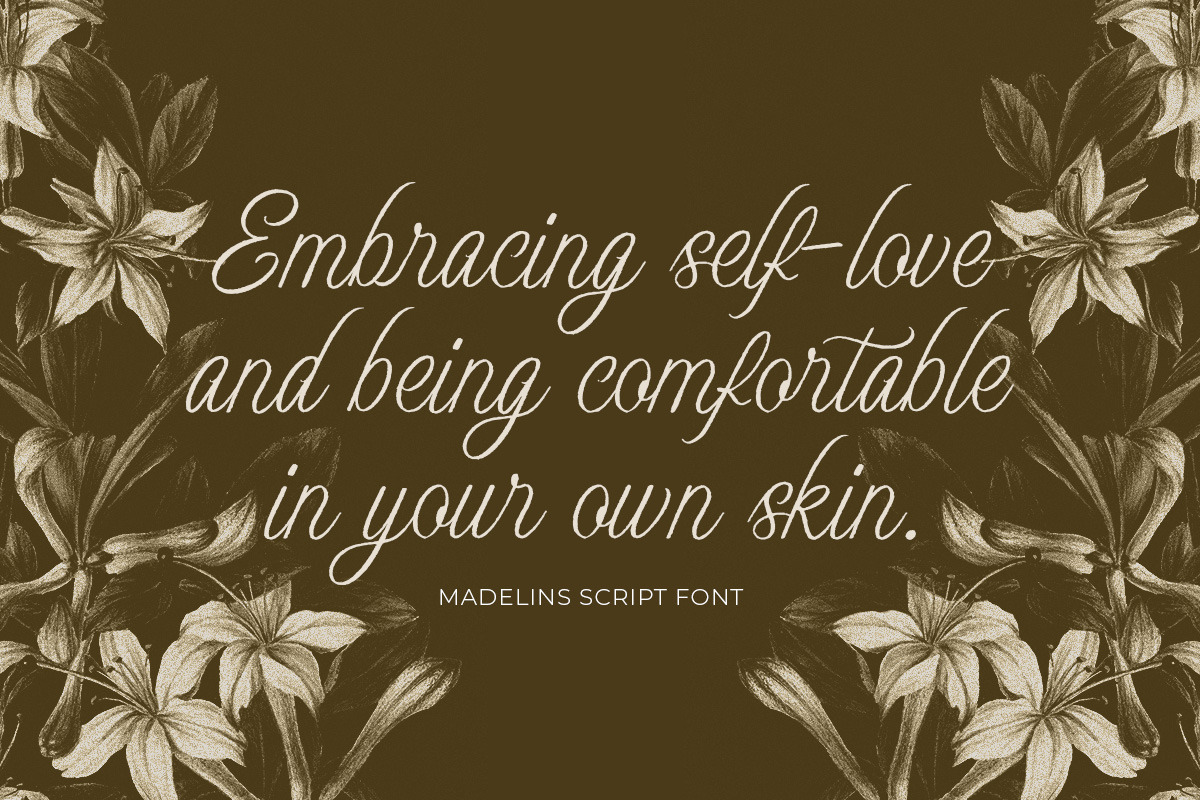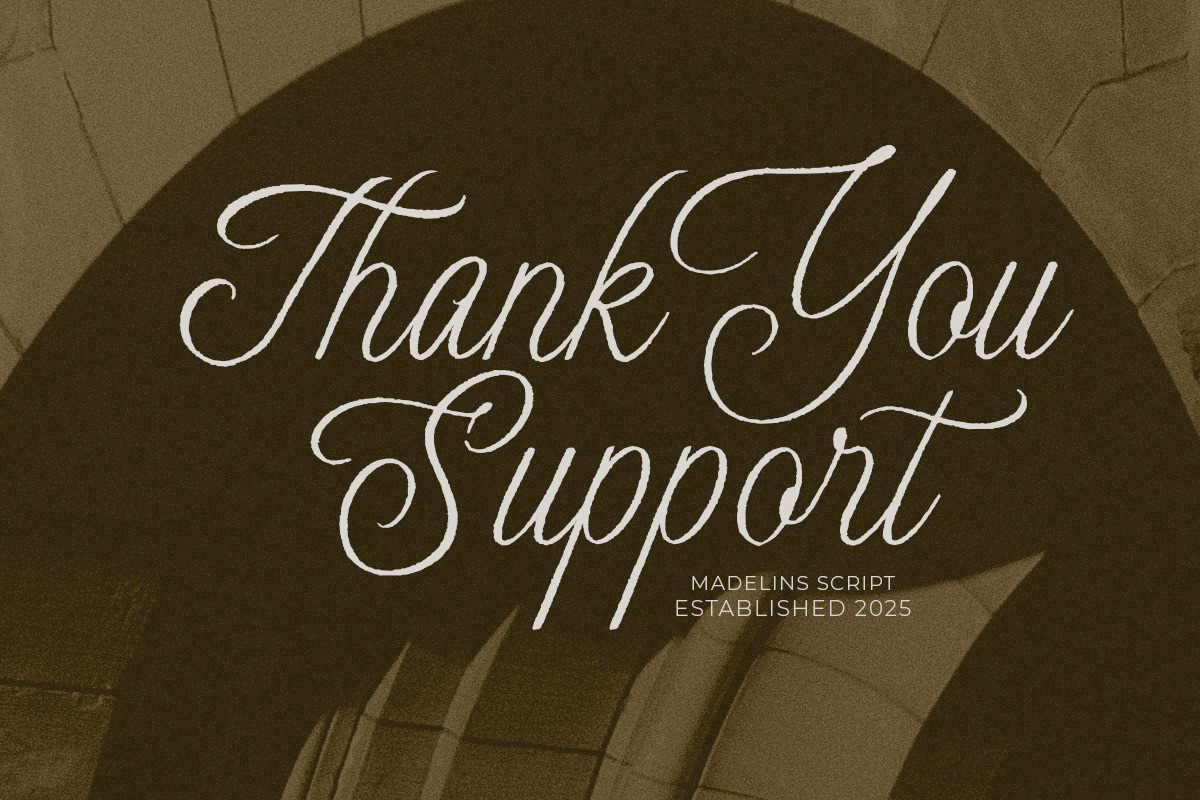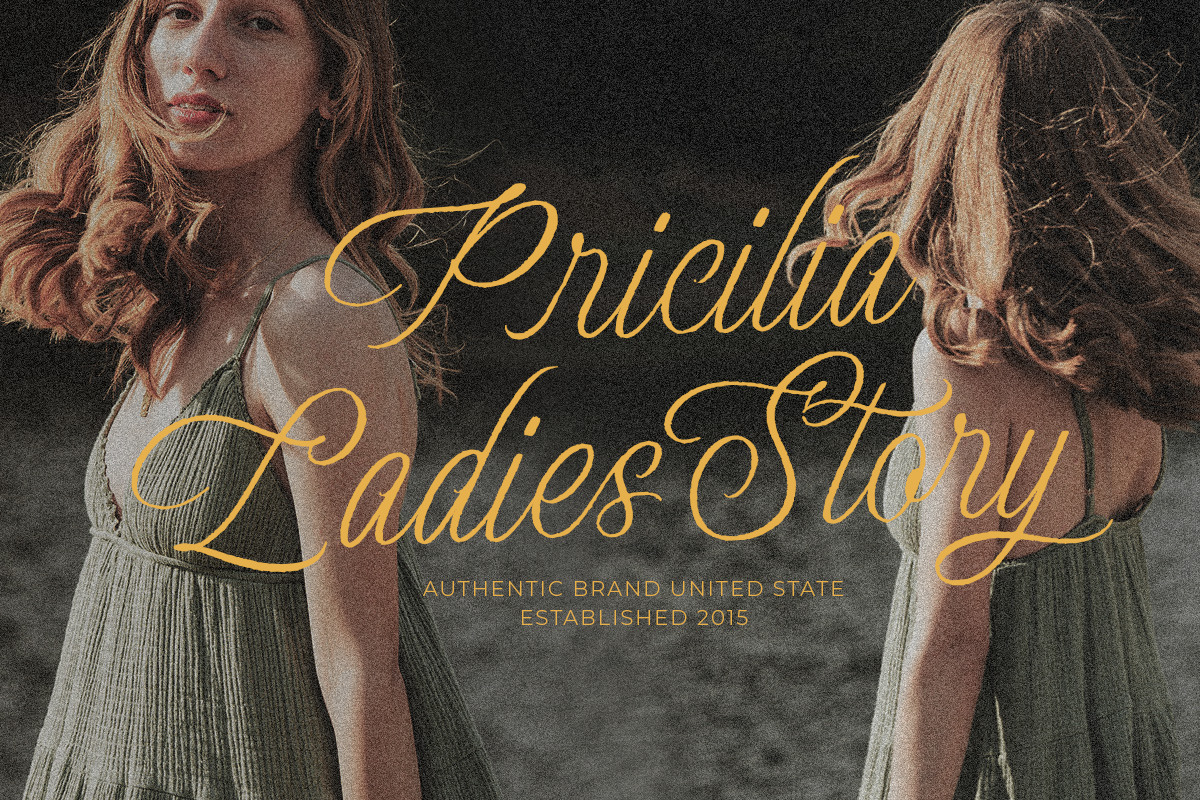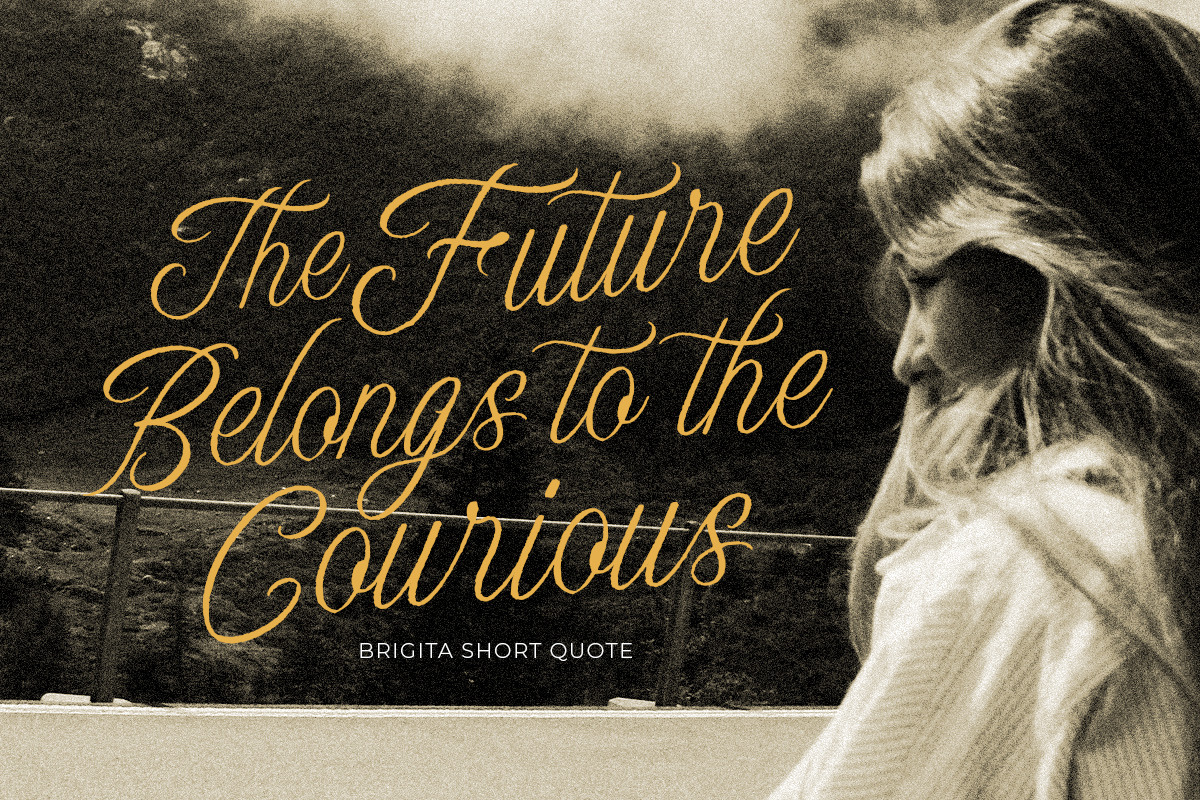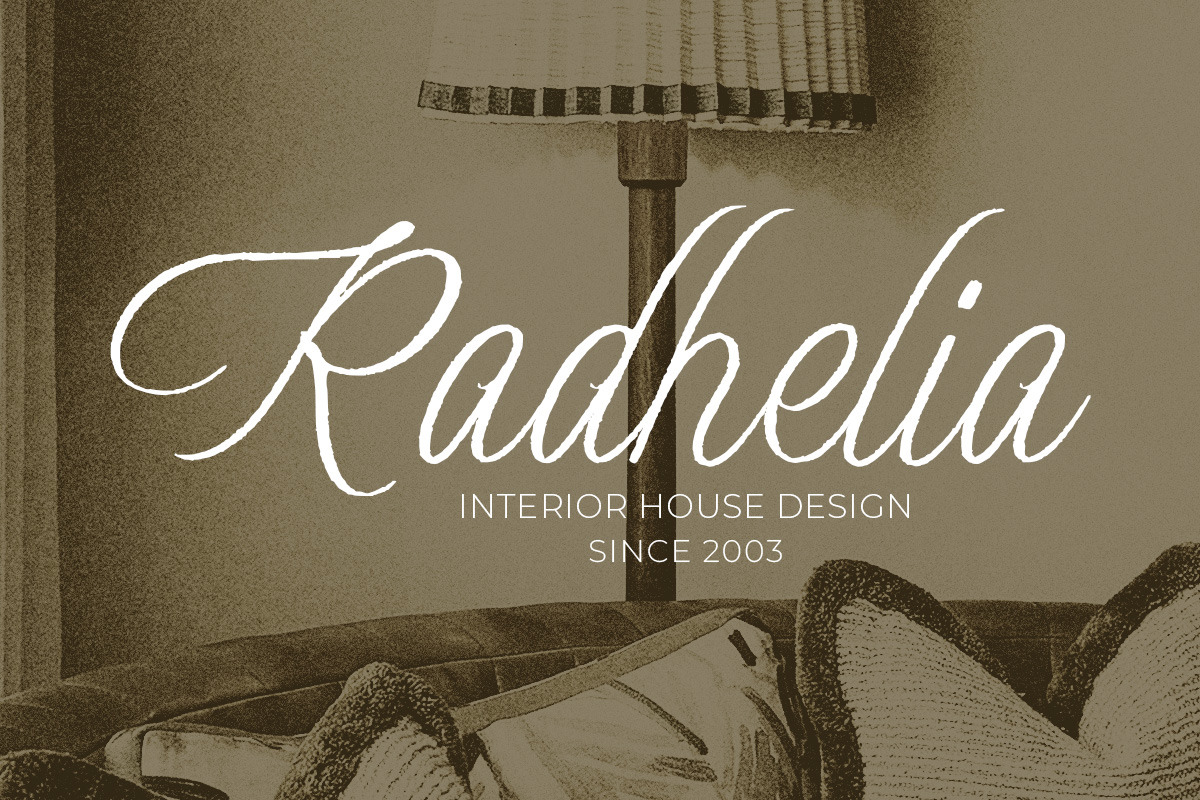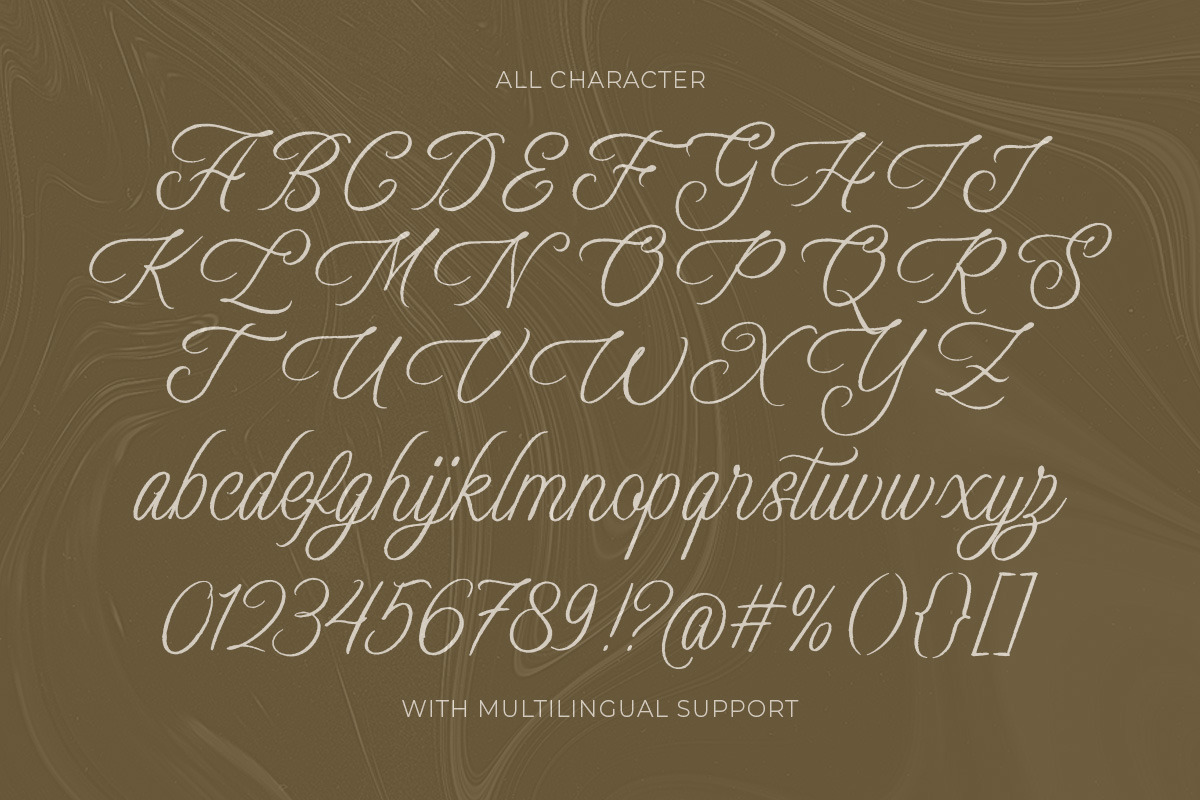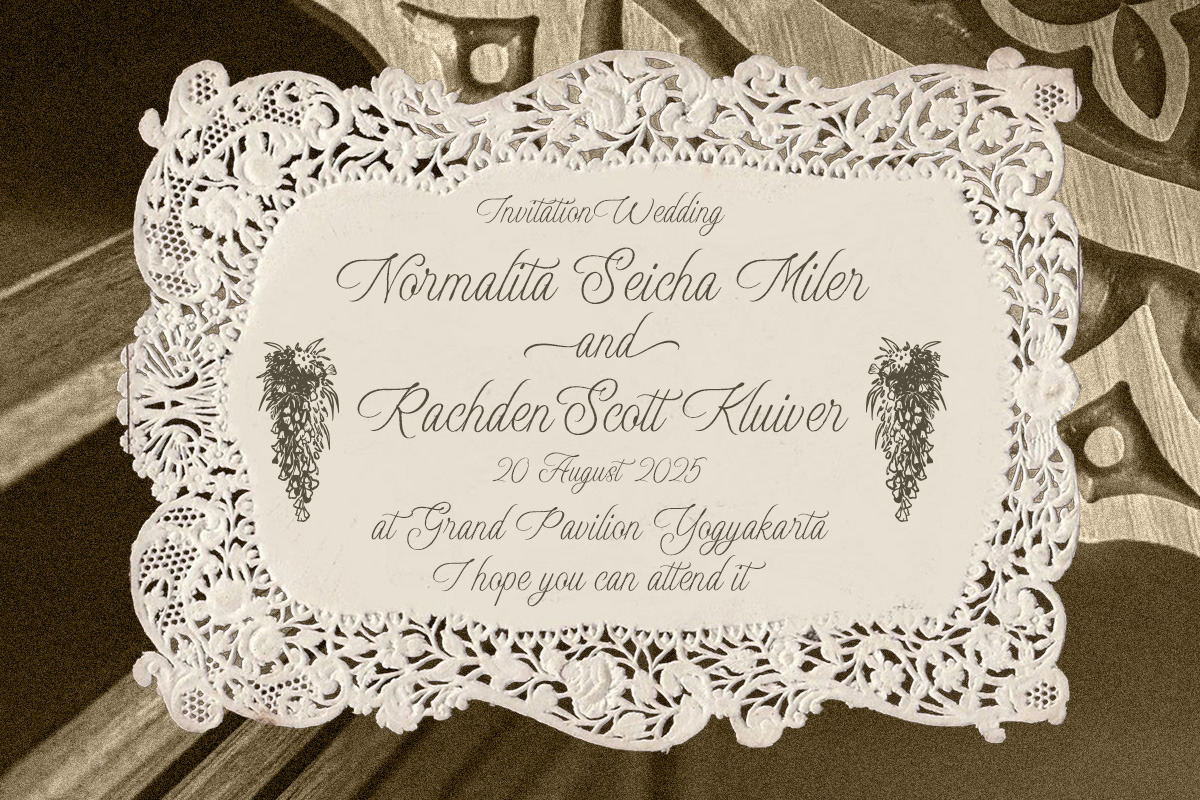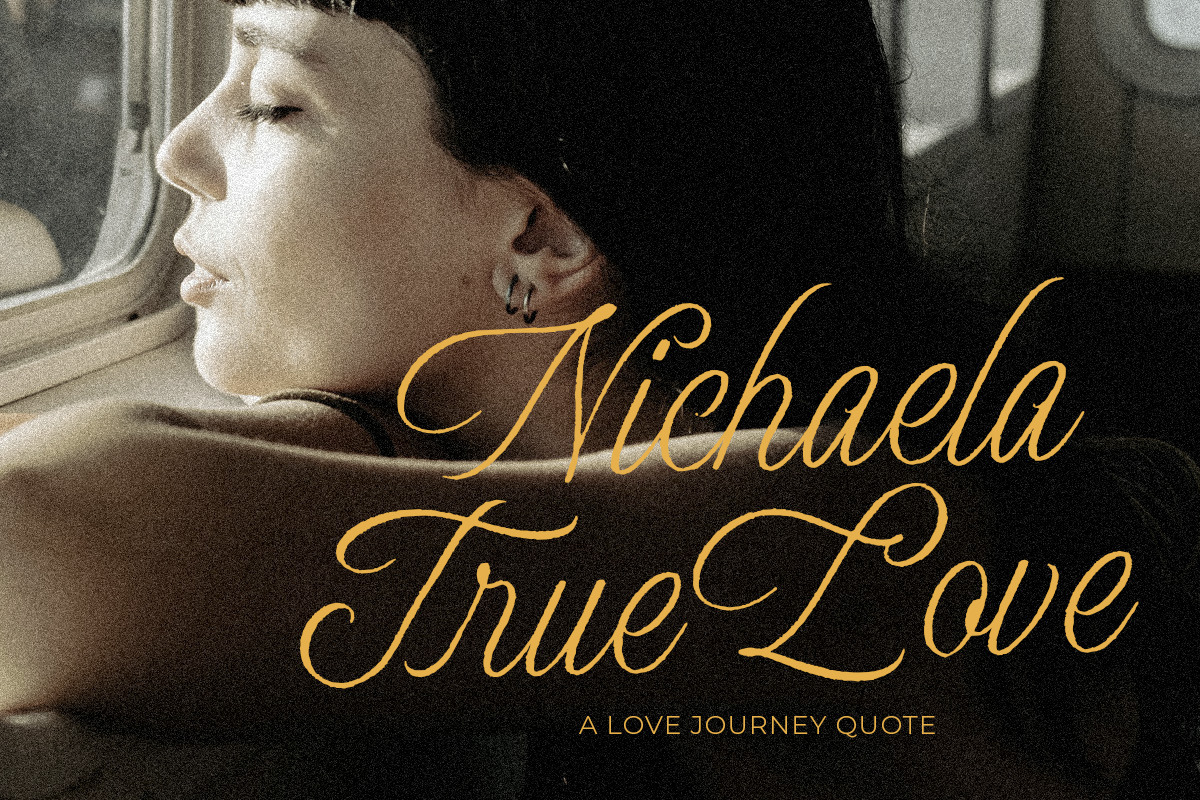
Madelins Script
Madelins Script is an elegant and refined handwritten script font with a natural flow and vintage charm. Its calligraphic strokes and graceful curves make it perfect for creating romantic, luxurious, or artistic design projects. Features :